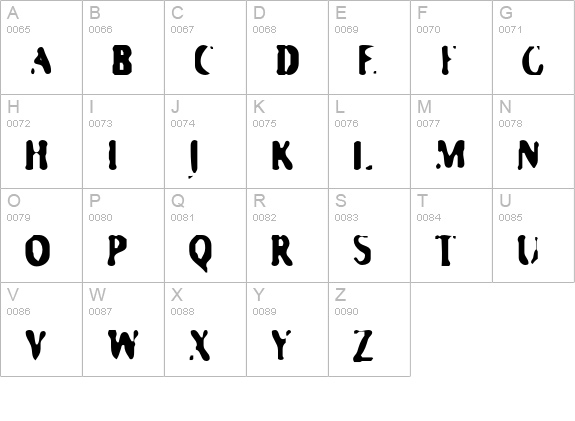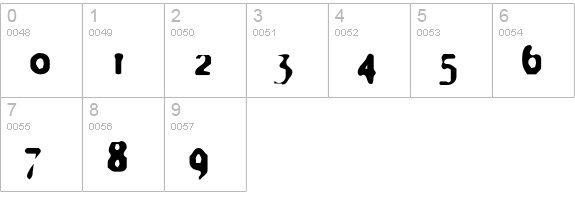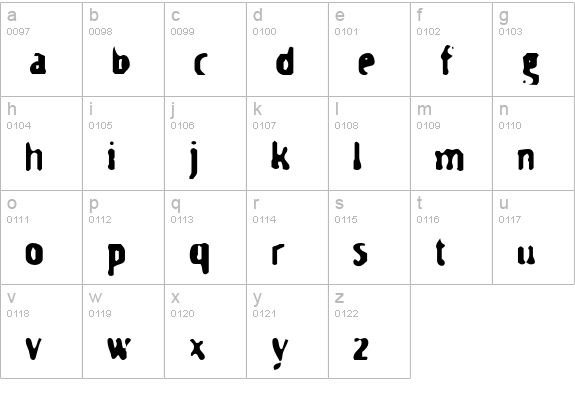
HateNoteThreatening Font Details
Introducing HateNoteThreatening font, a powerful and intense typeface that embodies the raw emotions of anger and rebellion. With its bold and edgy design, HateNoteThreatening font is perfect for making a bold statement in your designs, whether it be for posters, album covers, or any project that requires a touch of aggressive energy. This captivating font features sharp, jagged edges that exude a sense of danger and hostility, capturing the essence of a threatening message. Each letter is meticulously crafted with precision, ensuring that every character conveys the intense emotions that the font represents. But that's not all - the best part about HateNoteThreatening font is that it is completely free! Yes, you read that right. This remarkable font is freely available to download at FontsMarket.com. Now you can unleash your creativity without worrying about any additional costs, making HateNoteThreatening font the ultimate tool for designers and creative enthusiasts alike. With HateNoteThreatening font, you have the freedom to express yourself without limitations. Its distinct and commanding presence will make your designs stand out from the crowd, grabbing the attention of viewers and leaving a lasting impact. So why wait? Download HateNoteThreatening font today from FontsMarket.com and let your creativity flow. Unleash the power of this striking typeface and create designs that leave a lasting impression. Whether you want to make a bold statement, evoke strong emotions, or simply add a touch of rebellion to your projects, HateNoteThreatening font is the perfect choice.